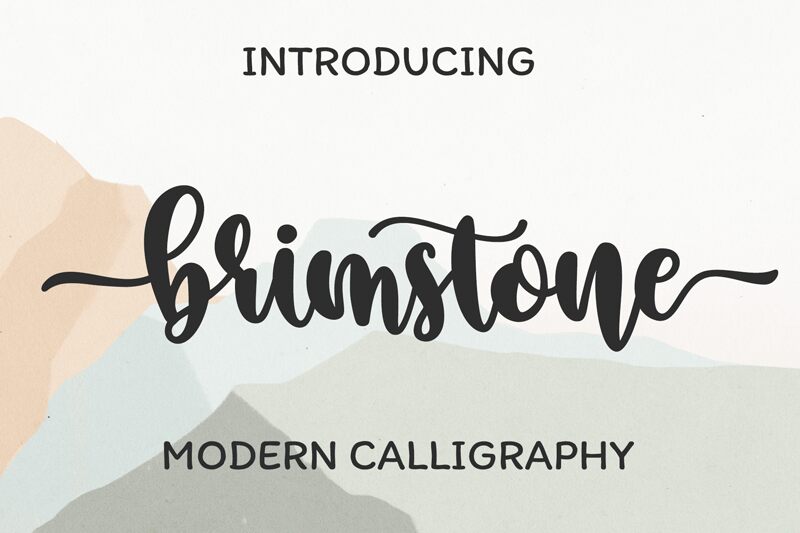
brimstone
Brimstone, the latest typeface crafted by Bearytype, is a bold calligraphic font that exudes elegance and sophistication. With its sweeping curves and sharp edges, Brimstone brings a touch of luxury to any design project it graces. This versatile font is perfect for everything from wedding invitations to high-end branding projects. Its bold weight commands attention while its calligraphic style adds an air of refinement. Whether you're creating a logo, designing a menu or crafting social media posts, Brimstone is sure to impress. Add this stunning typeface to your collection today and elevate your designs to new heights!